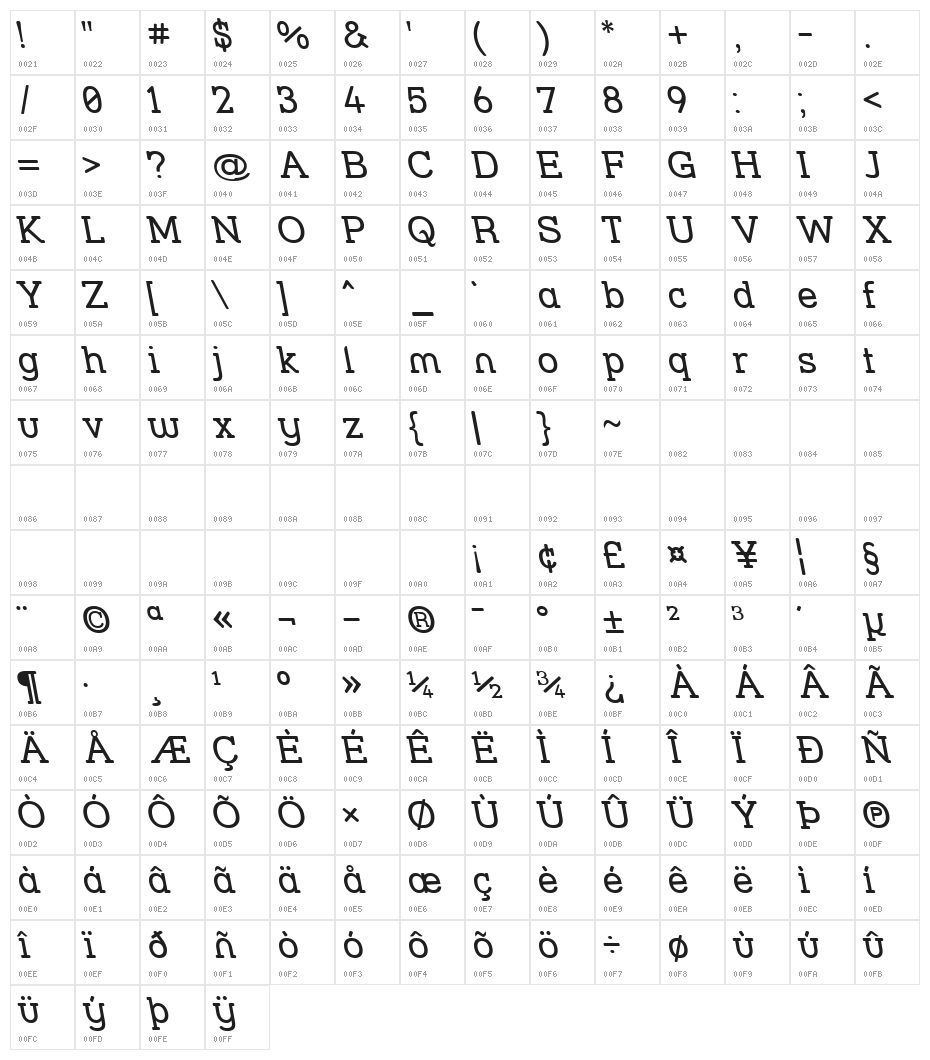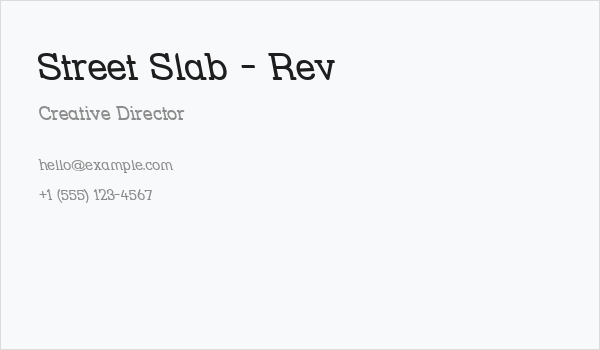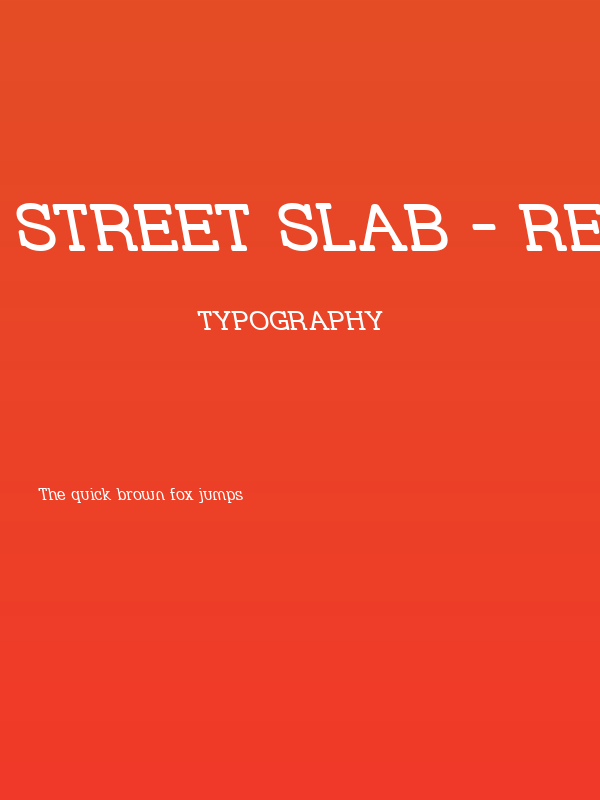
Street Slab - Rev Font
Street Slab - Rev Description
This font features a robust and bold slab serif design, characterized by thick, block-like serifs that give it a strong and authoritative presence. The letters are evenly spaced, providing a clean and organized appearance. The uppercase and lowercase letters maintain a consistent style, with rounded edges that soften the overall look. Numbers and special characters are designed with the same boldness, ensuring readability and impact. This font's style is both modern and classic, making it versatile for various design needs.
| Use Case | Headlines, Logos, Signage |
| Proposed Projects | Ideal for branding projects, headlines, posters, and signage where a strong, impactful font is needed. |